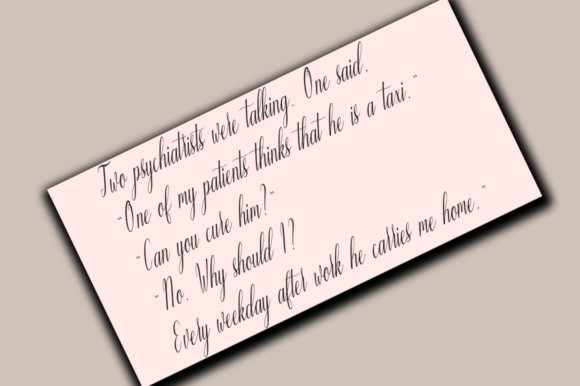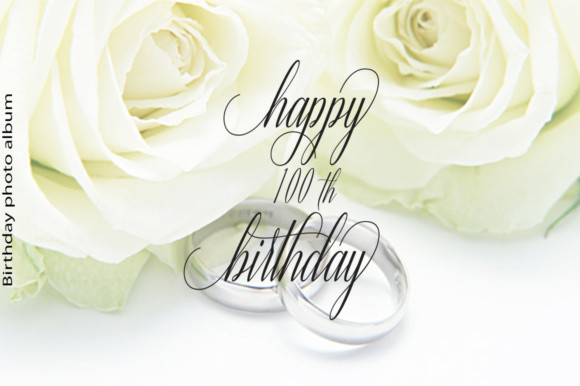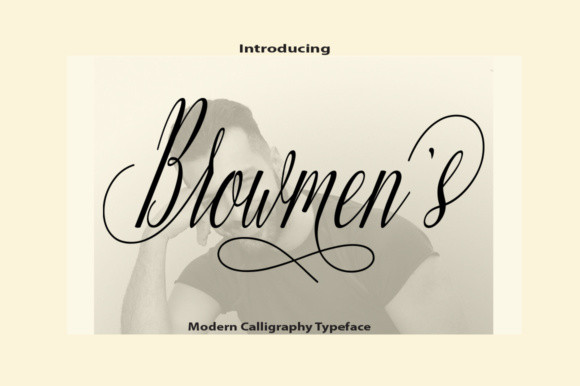
Browmen’s Font
Browmen’s is a lovely and modern calligraphy typeface with a dancing baseline. Browmen’s is combining the style of classic calligraphy with an modern style, which is why it can be used for every design that needs a feminine and elegant look and feel.